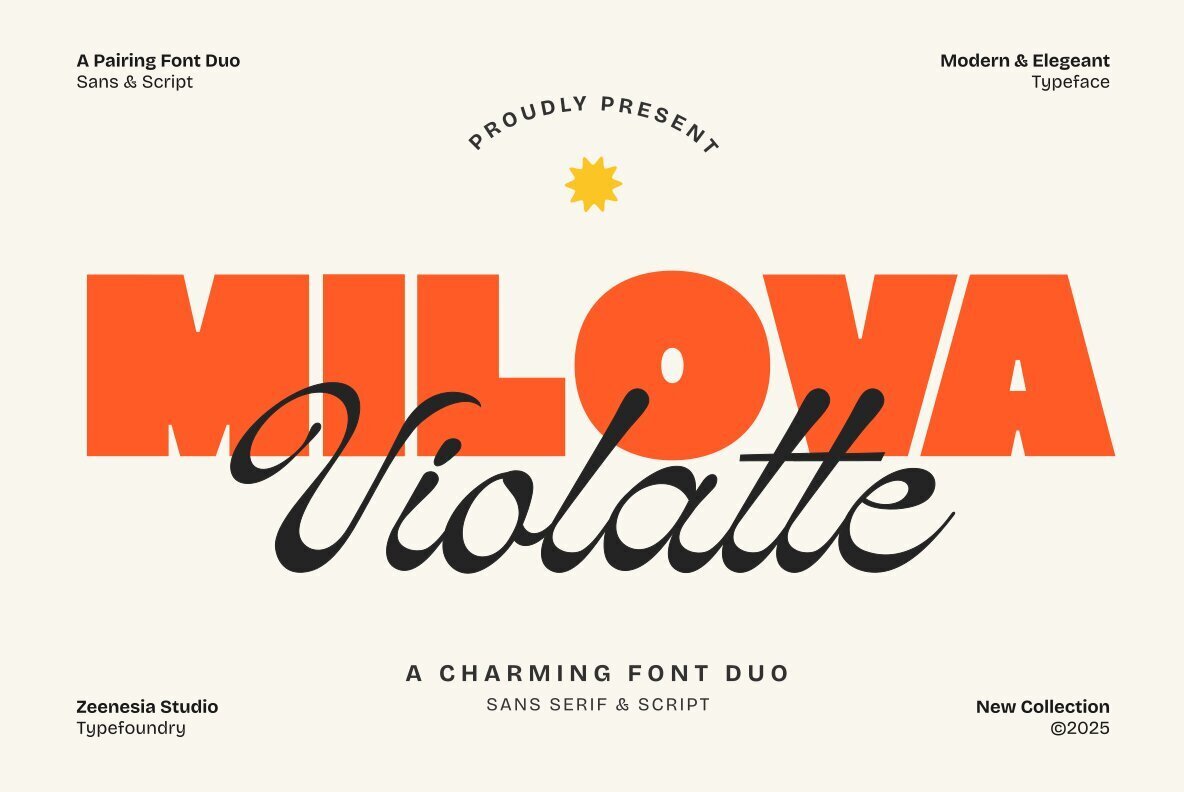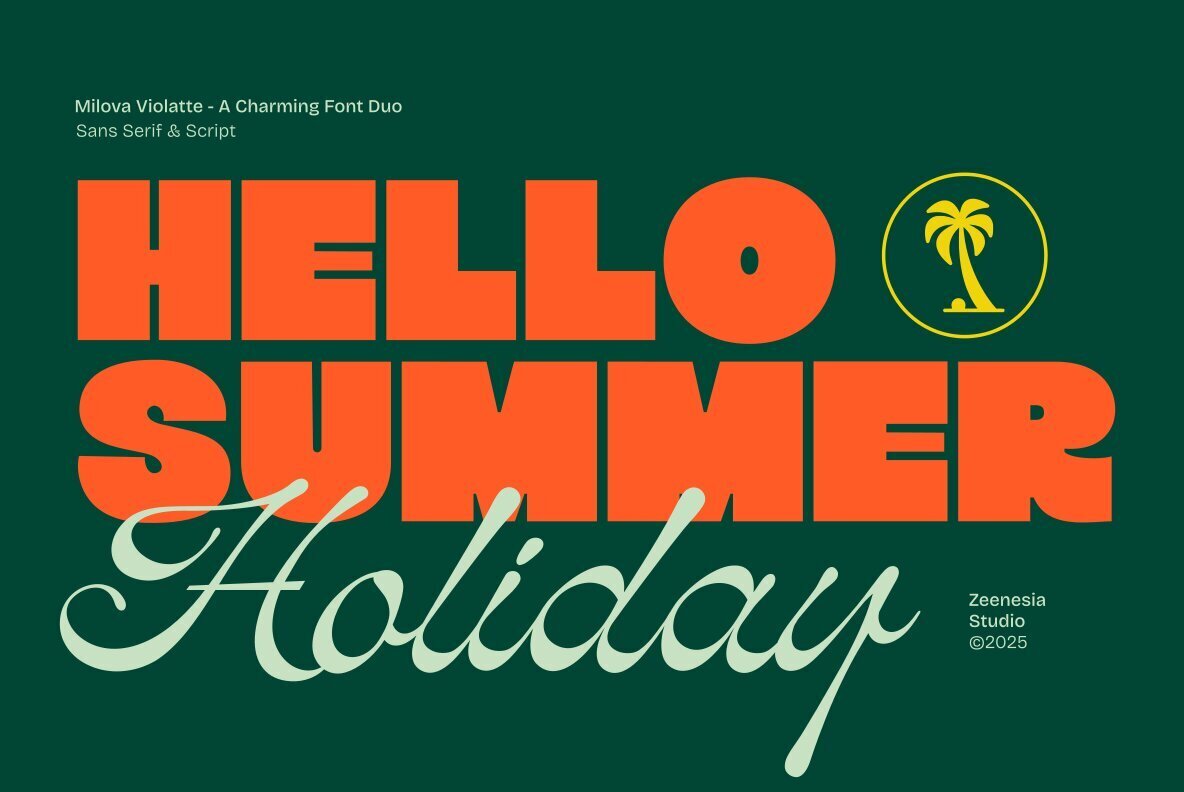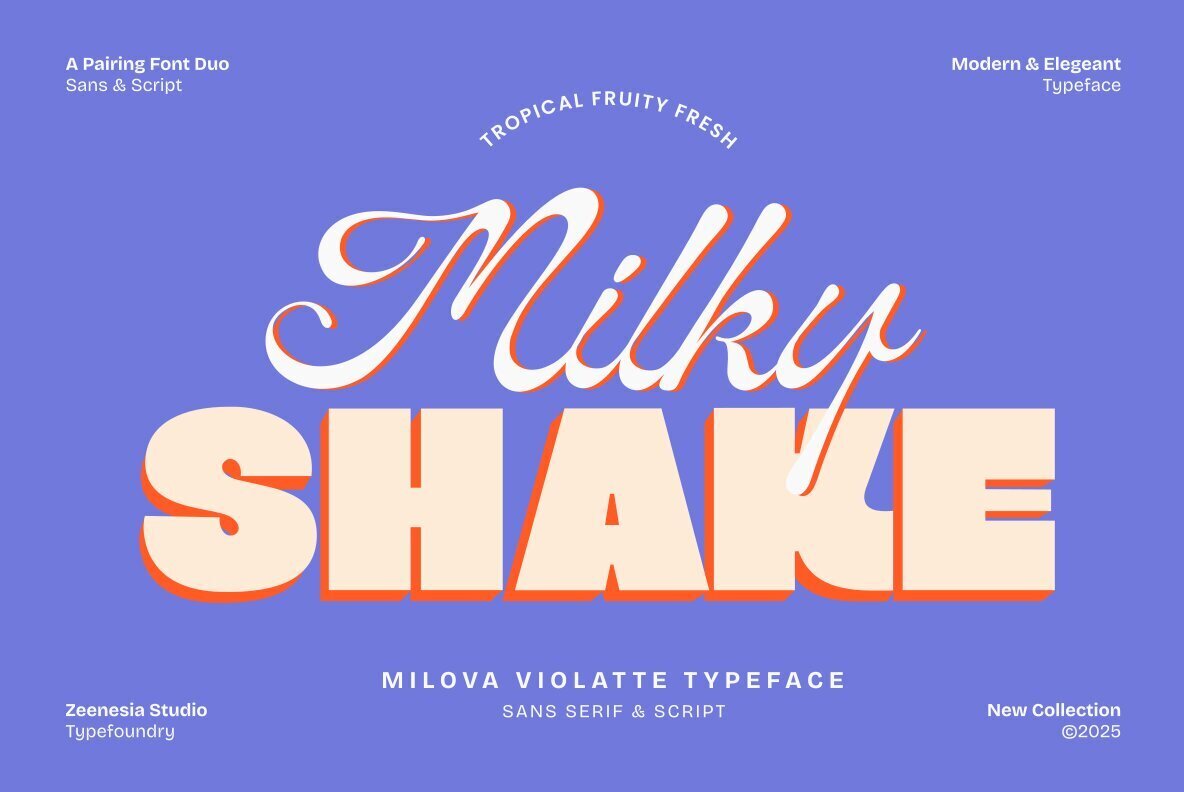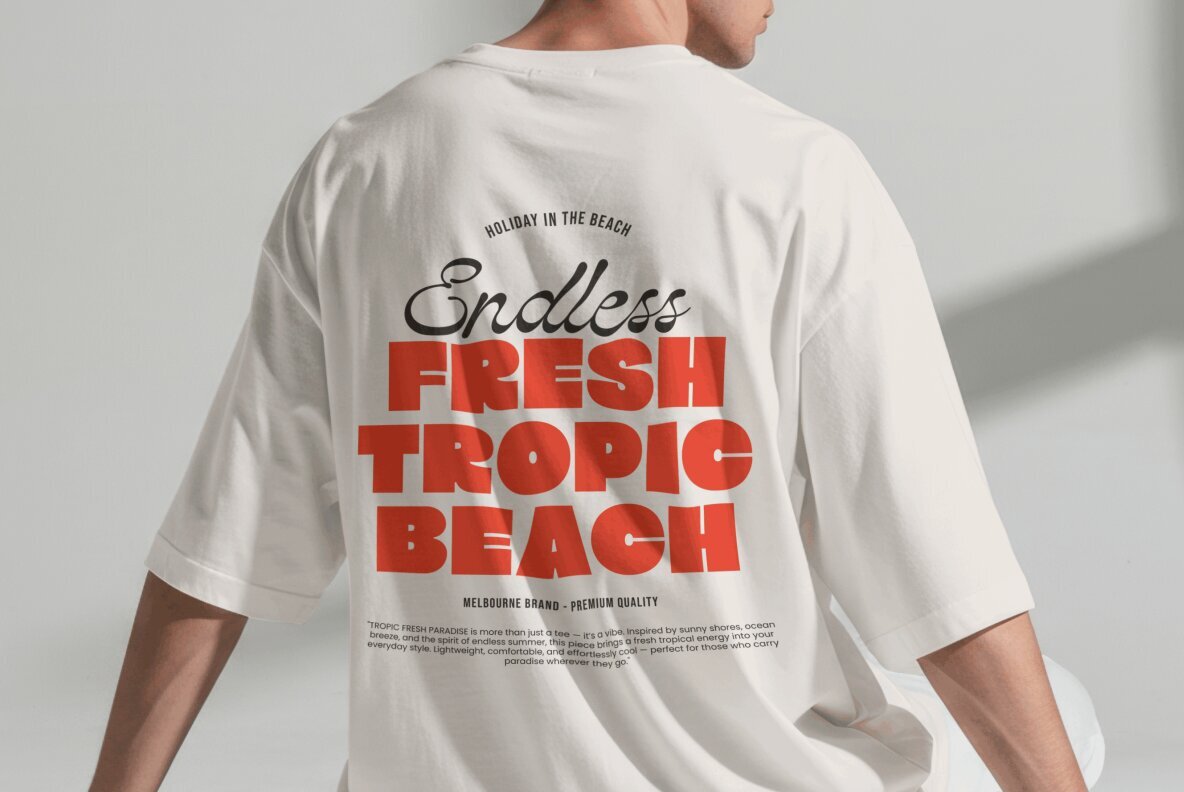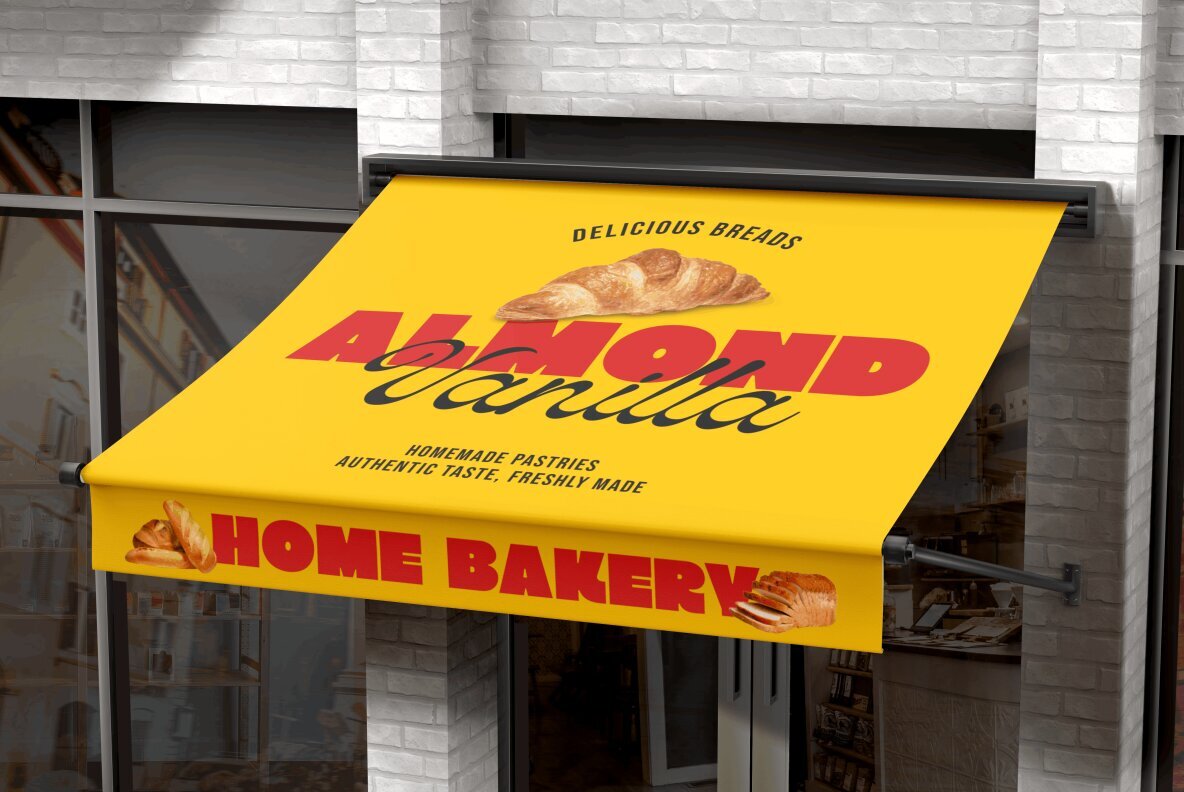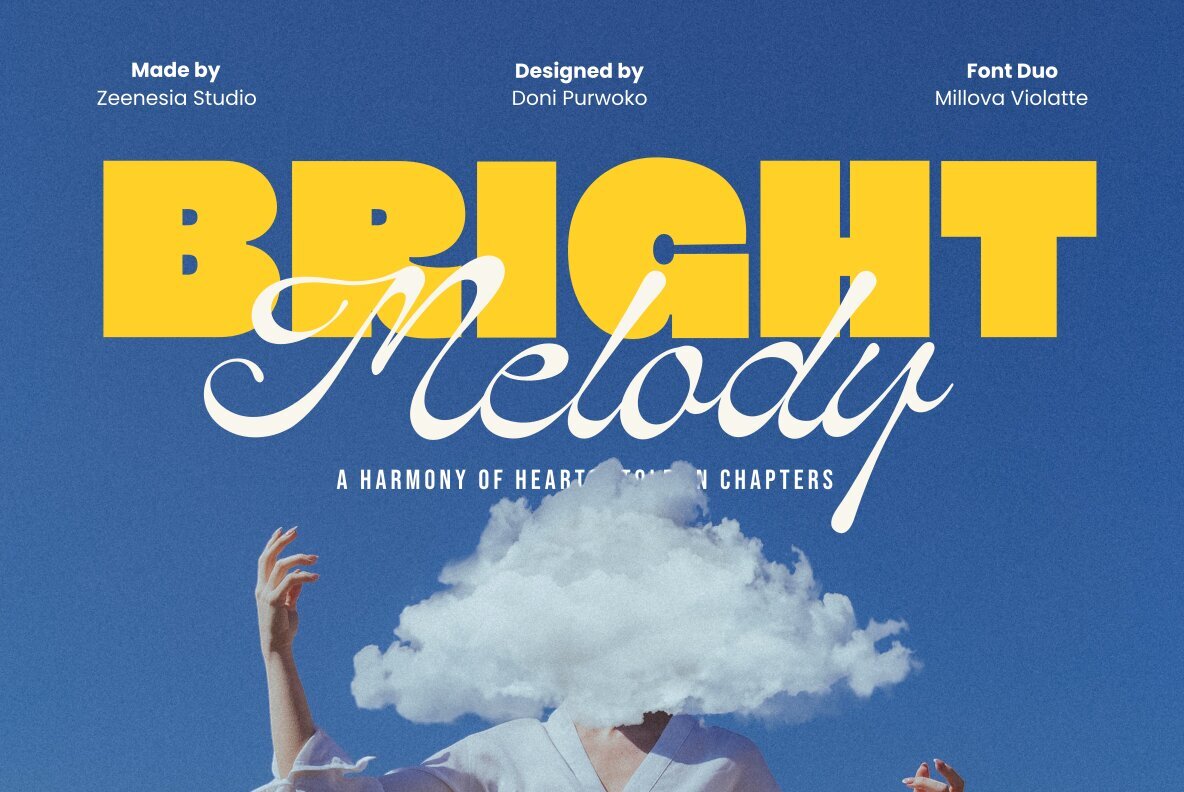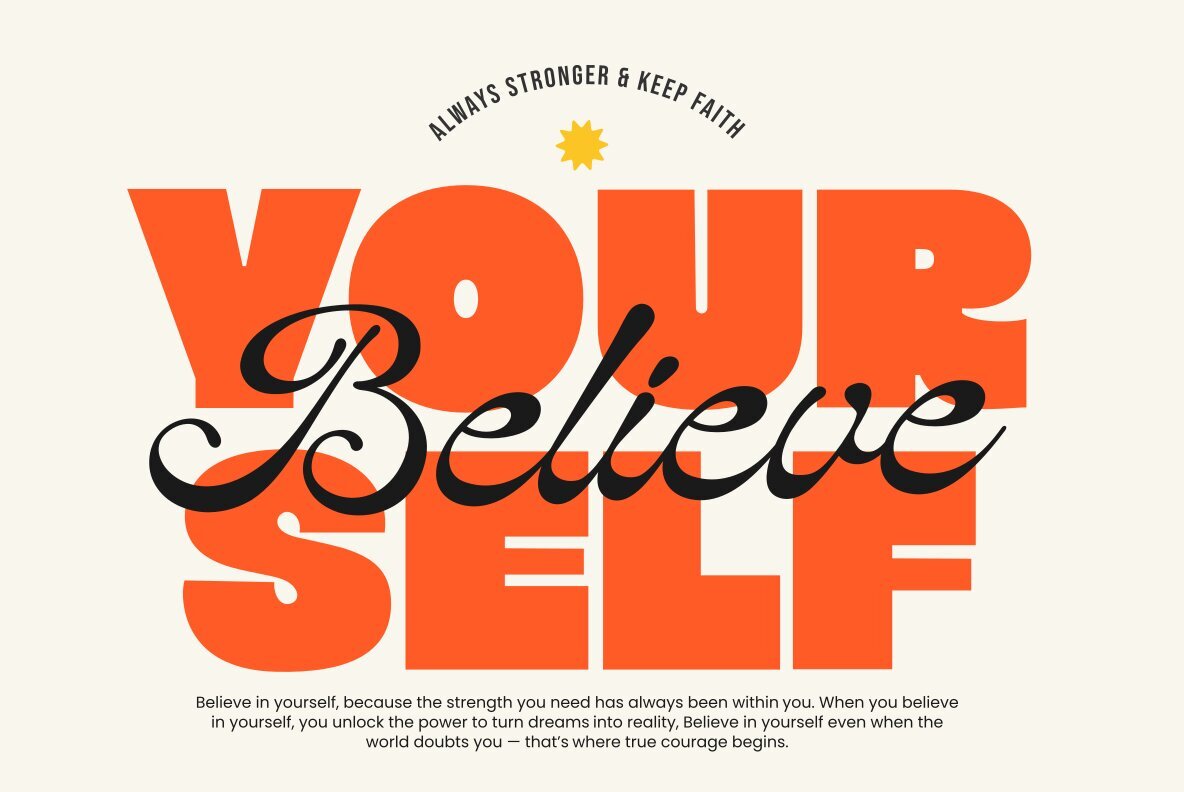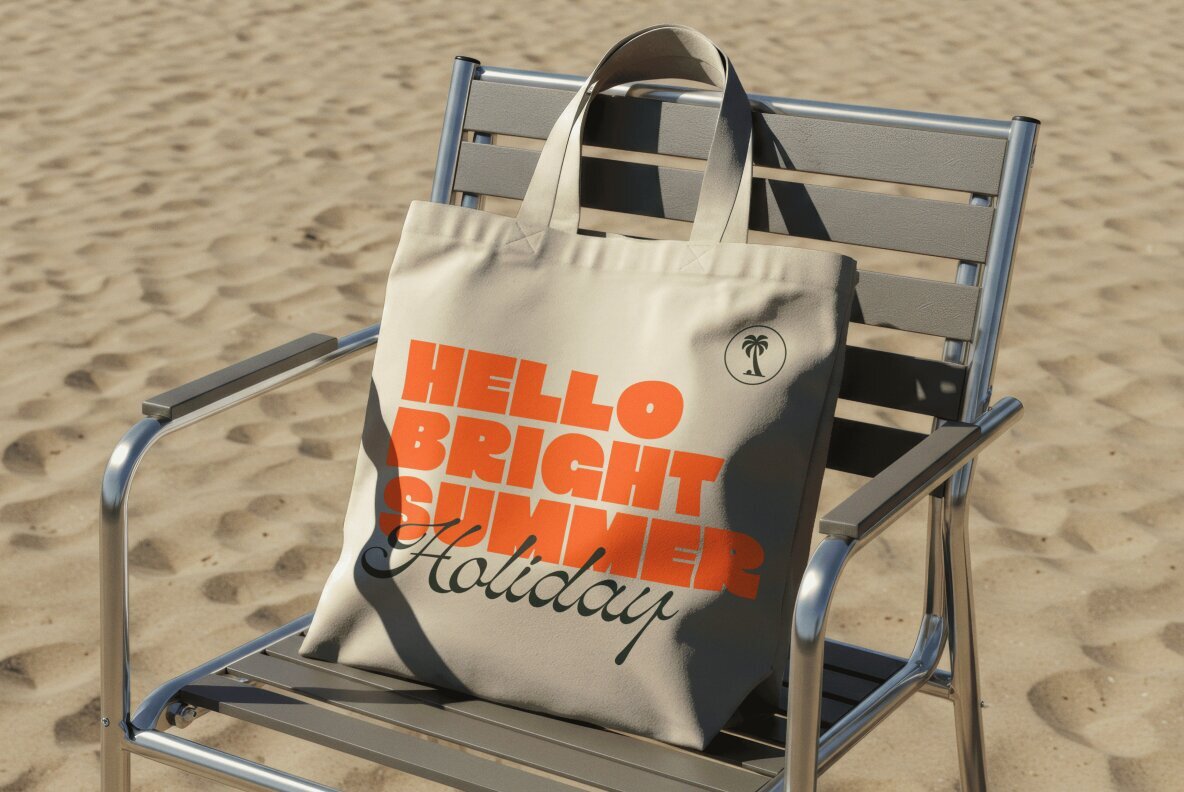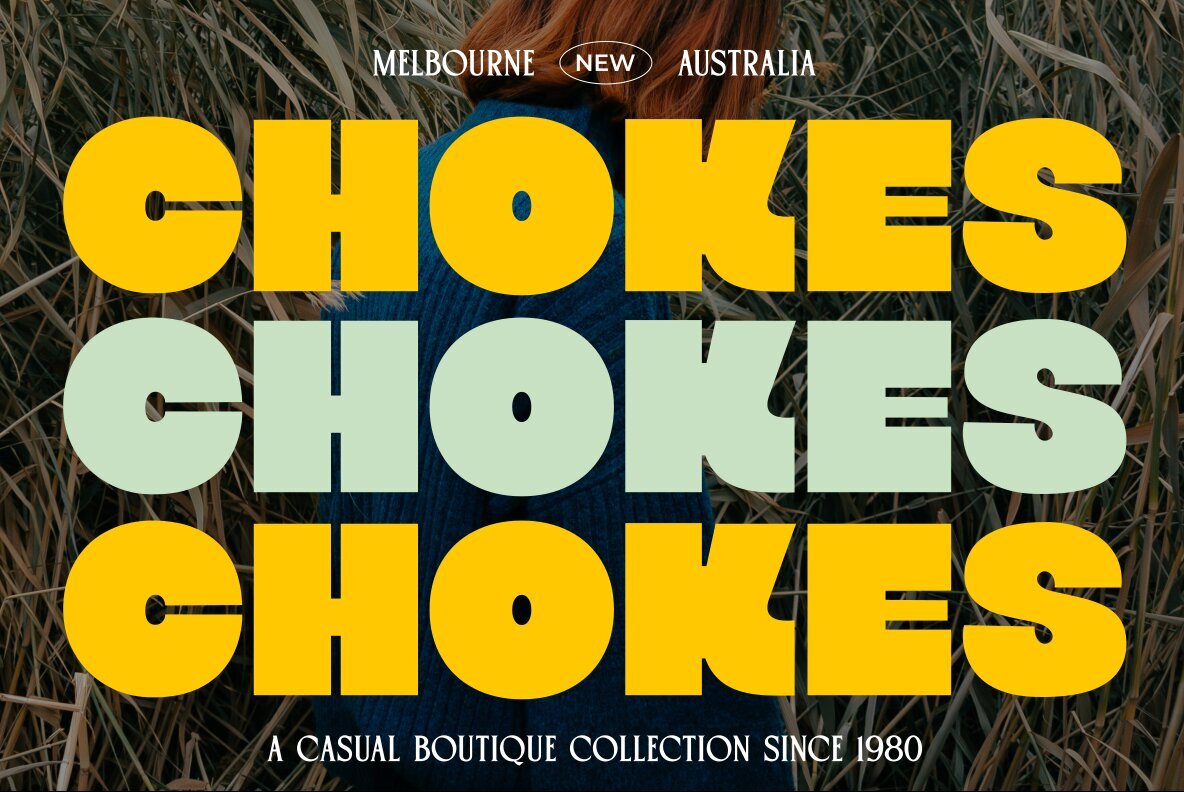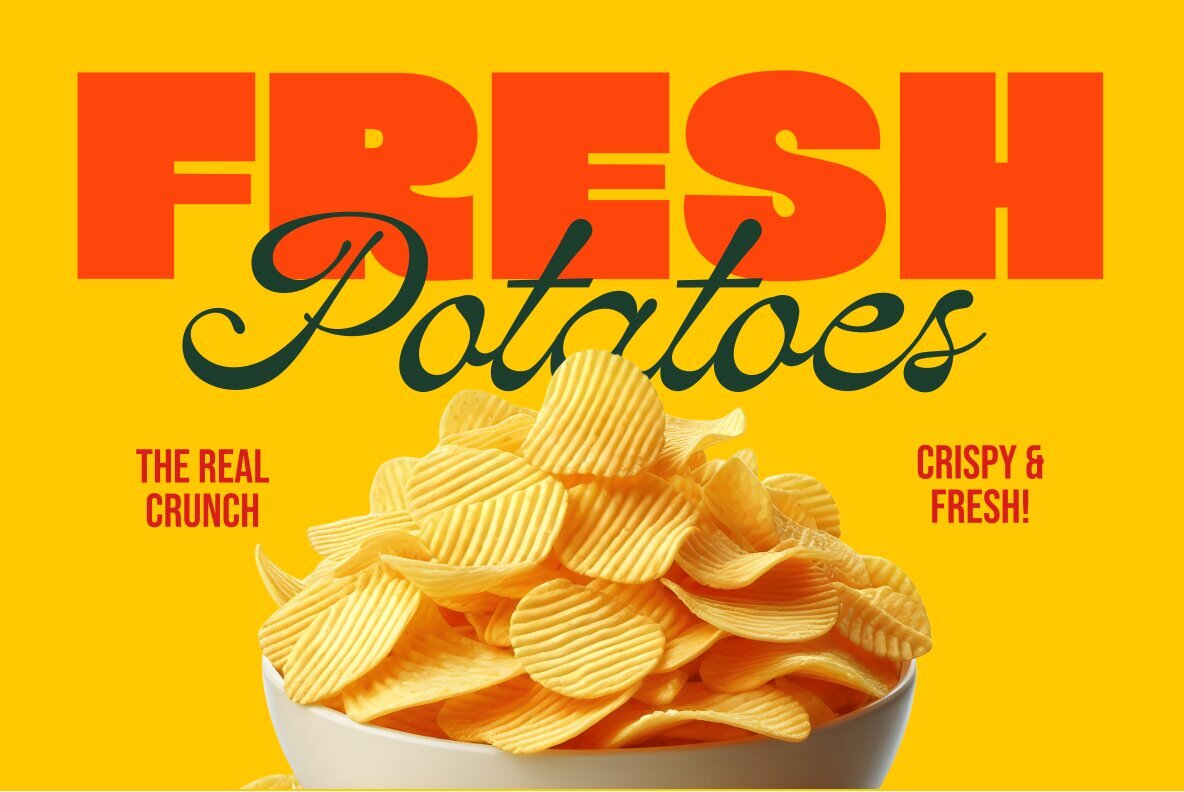
Milova Violatte Font
Milova Violatte is an artful font duo combining modern sans serif confidence with the delicate allure of script. It is designed to create a balance of strength and elegance, making it an excellent choice for visually captivating projects. The sans serif style offers a clean and contemporary appearance suitable for headlines, posters, and branding. Complementing this is the charming script style, ideal for invitations, logos, packaging, and editorial content. With Milova Violatte's modern yet enduring character, designers can produce standout visuals, fitting both personal and professional branding needs. Features:Milova Violatte: Elegant Font Duo for Distinctive Designs